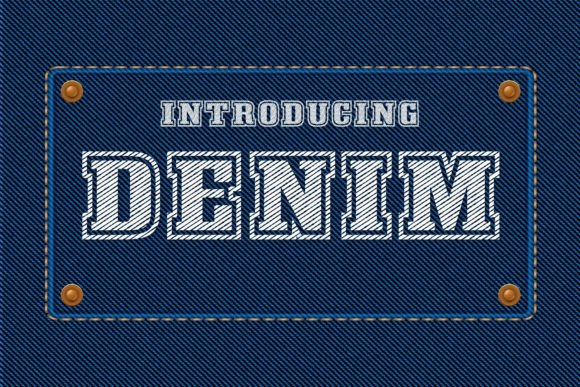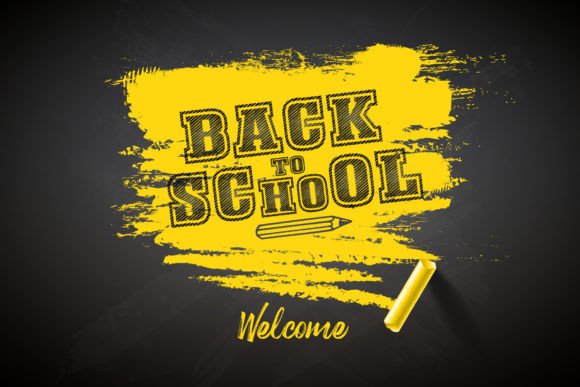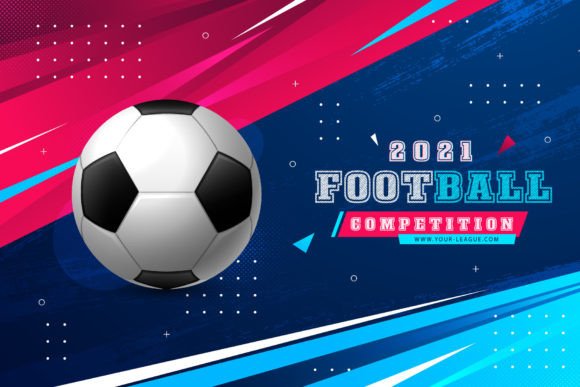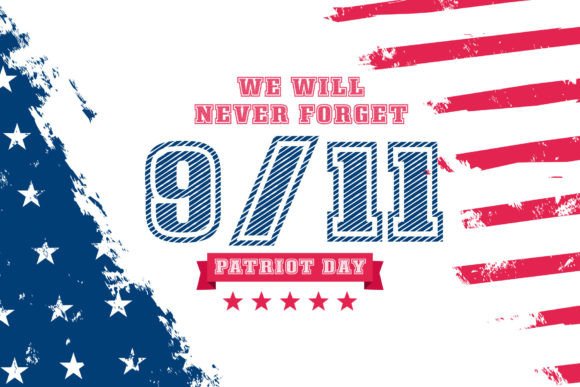
Denim Font
About the Denim Font
Step up your design game with Denim Font, a font that exudes confidence and style. Denim is a decorative font designed to give the feel of denim. It looks fun and cool, perfect for cool projects, blog posts, logos, branding, ads, invitations, greeting cards, planners, photo albums, decorations, and much more. This font will be a wonderful asset to your font library, as it has the potential to enhance any creation. Add it to any of your designs and enjoy the results!
Denim’s playful, slightly distressed aesthetic works best in headlines, short text blocks, logos, and branding applications where a casual, approachable feel is desired. It’s ideal for projects targeting younger demographics or those with a vintage or Americana vibe. Avoid using Denim for body copy or lengthy paragraphs; its decorative nature compromises readability in extended text.
For optimal pairings, consider complementing Denim with a clean sans-serif like Open Sans for body text, providing a contrast in weight and style. Alternatively, a classic serif like Garamond can add sophistication, balancing Denim’s casual energy. For a more modern feel, a geometric sans-serif such as Futura could create a striking juxtaposition.
Denim’s overall personality is best described as youthful and rebellious, conveying a sense of effortless cool. This makes it particularly well-suited to brands focused on fashion, music, or entertainment that want to project a fun and authentic image.
Denim Font Usage Examples
Denim Font Example